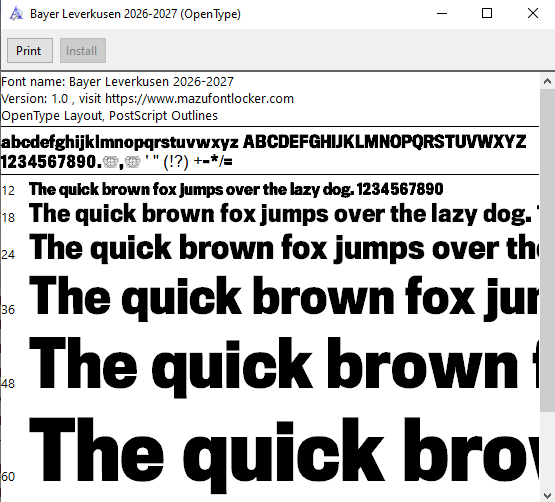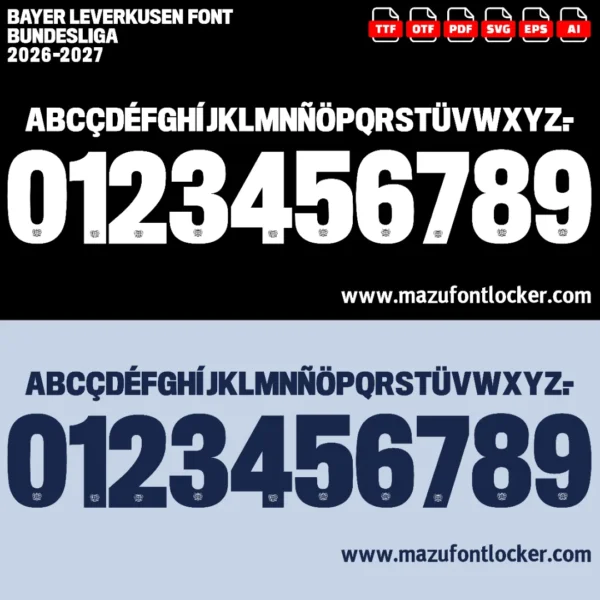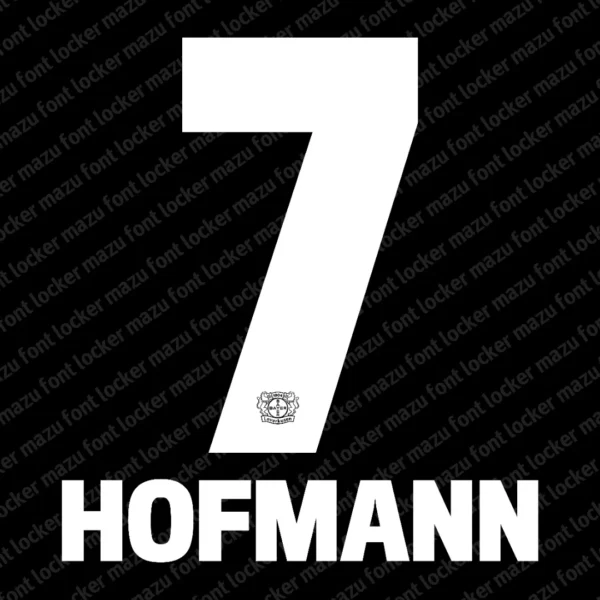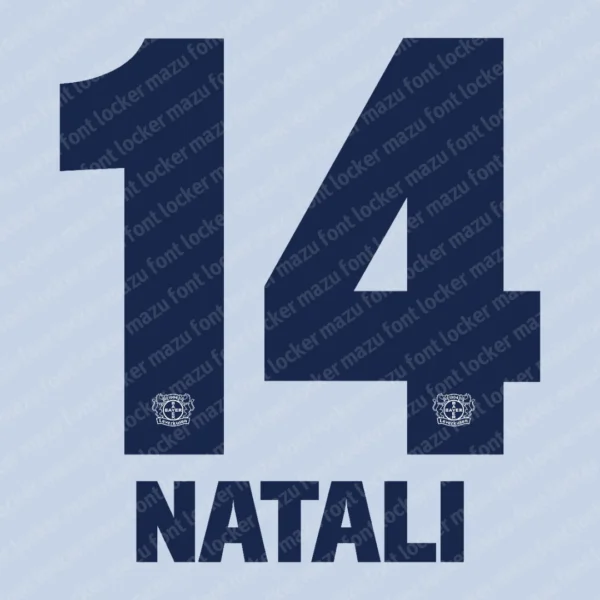
Bayer Leverkusen 2026-2027 Font Vector – Stunning Werkself Champions Masterpiece
This font captures the powerful, modern, determined, and precision-crafted lettering that perfectly reflects Die Werkself’s relentless ambition, German football heritage, and elite competitive spirit, delivering unmatched authenticity, premium quality, electrifying energy, and official Bundesliga style for professional jersey mockups, football graphics, sports branding, passionate fan creations, and high-end design projects.
Bayer Leverkusen 2026-2027 Font Vector – Stunning Werkself Legacy Typeface
The Bayer Leverkusen 2026-2027 Font Vector is a premium typeface that accurately recreates the official match lettering worn by Bayer Leverkusen during the 2026-2027 season. This high-quality vector font kit captures the modern, sharp, and distinctive typography that perfectly reflects the club’s bold black and red identity, making it ideal for authentic football design projects.
Designed for professional designers, football enthusiasts, and dedicated Werkself supporters, the Bayer Leverkusen 2026-2027 Font Vector delivers exceptional authenticity for creating realistic jersey mockups, football merchandise, social media graphics, match posters, and custom fan artwork. Every character has been carefully recreated to match the official on-pitch appearance throughout the 2026-2027 campaign.
Why Choose Bayer Leverkusen 2026-2027 Font Vector
This font stands out thanks to its precise vector construction and authentic club styling. Every letter and numeral has been meticulously recreated to match the official shirt lettering worn during the 2026-2027 season. Whether you’re producing professional kit templates, collector projects, or football-inspired creative content, the Bayer Leverkusen 2026-2027 Font Vector delivers a genuine match-ready appearance.
The lettering featured in the Bayer Leverkusen 2026-2027 Font Vector combines clean geometric lines with bold modern proportions. The result is a premium and highly legible typeface that reflects Bayer Leverkusen’s dynamic playing style, competitive spirit, and contemporary football identity.
The numerals feature balanced proportions, sharp angles, and consistent spacing for maximum readability on jerseys and digital media. Built entirely as scalable vectors, every number remains crisp for jersey customization, print production, posters, banners, and high-resolution graphics.
• Complete uppercase A–Z alphabet and numbers 0–9 in authentic Bayer Leverkusen 2026-2027 style
• Special Bayer Leverkusen badge glyph – Press the “:” (Colon) key to insert the league badge
• Create authentic Bayer Leverkusen 2026-2027 home and away jersey mockups
• Produce custom Bayer Leverkusen-inspired merchandise and fan projects
• Includes authentic Bundesliga badge glyph placement beneath player numbers
Bayer Leverkusen 2026-2027 Season
The 2026-2027 campaign sees Bayer Leverkusen once again competing at the highest level of German football in the Bundesliga while aiming for success in domestic and European competitions. Wearing their iconic black and red colors, Die Werkself continues to showcase exciting football, tactical excellence, and one of the most recognizable visual identities in German football.
Following years of consistent growth and major achievements, Bayer Leverkusen has established itself as one of Germany’s elite clubs. The official 2026-2027 match lettering gives every jersey a premium finish that perfectly complements the club’s modern image and ambitious philosophy.
The Bayer Leverkusen 2026-2027 Font Vector is an independently designed typeface package inspired by the official shirt lettering worn throughout the 2026-2027 season. It has been carefully recreated for football enthusiasts, graphic designers, collectors, and creators producing custom jersey concepts, football artwork, and fan-made projects.